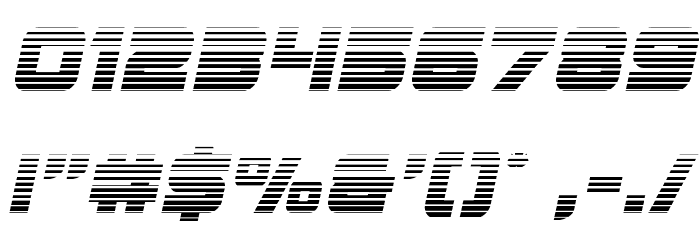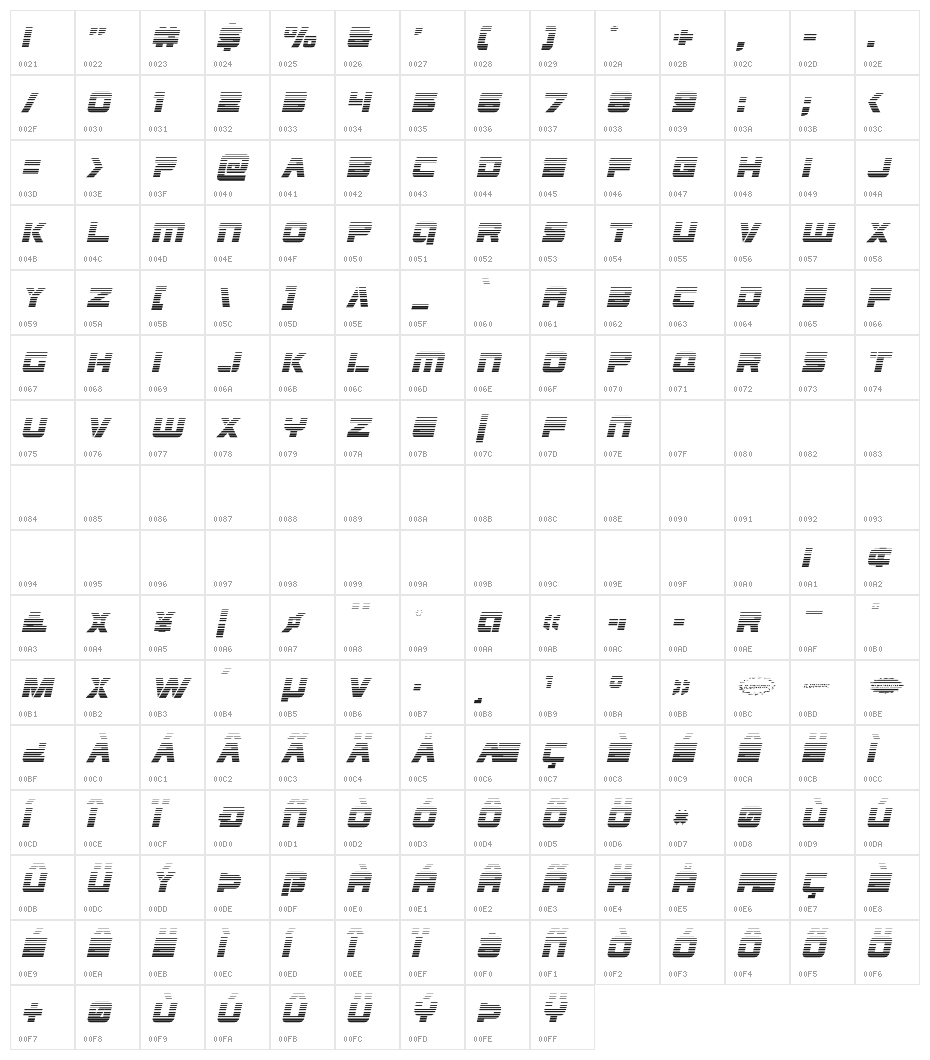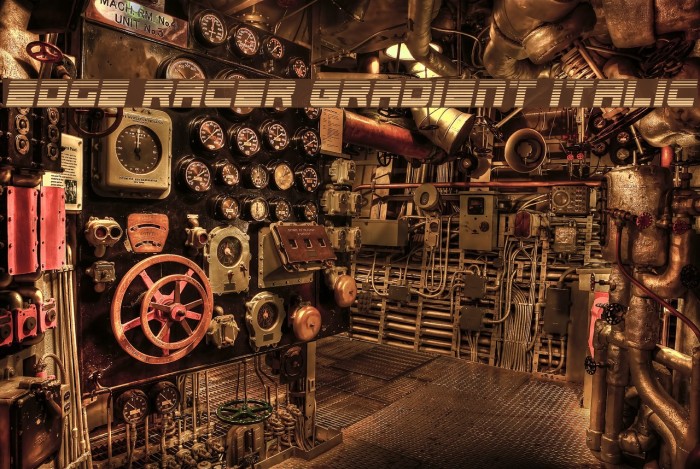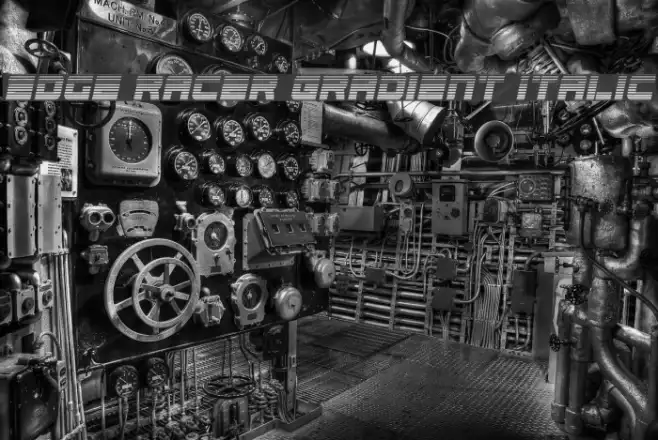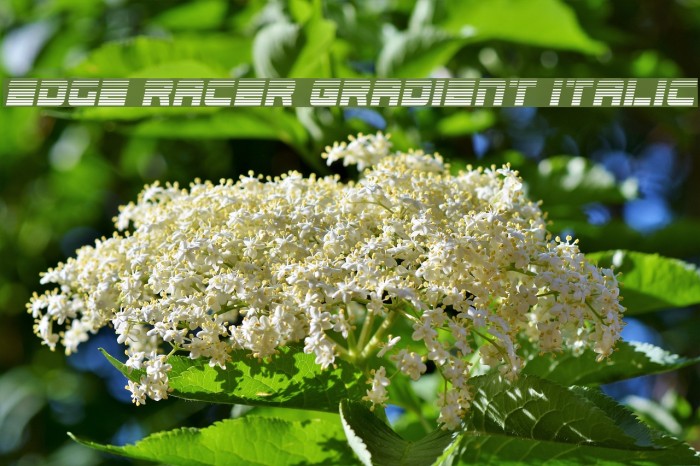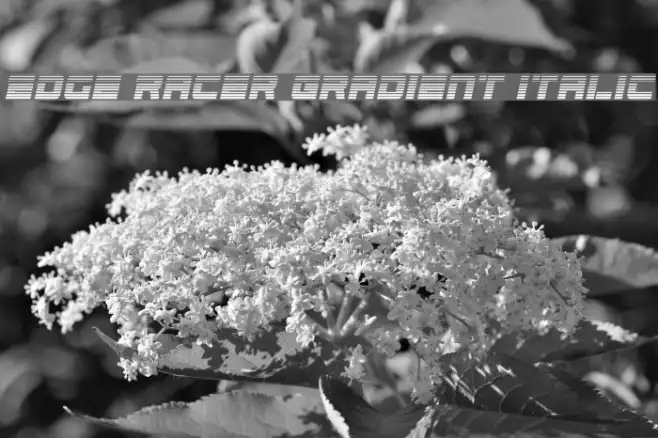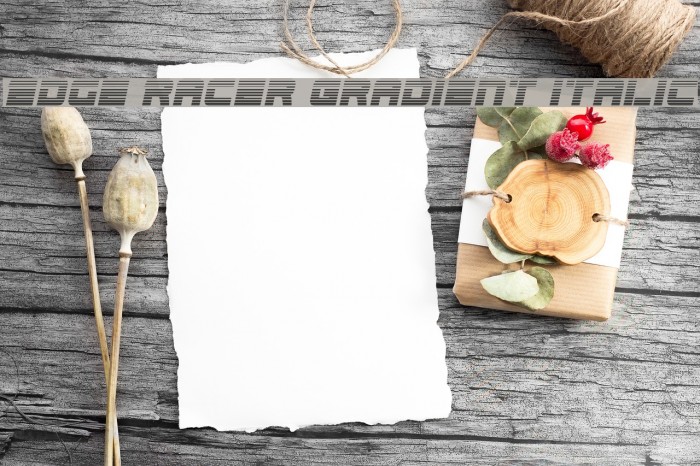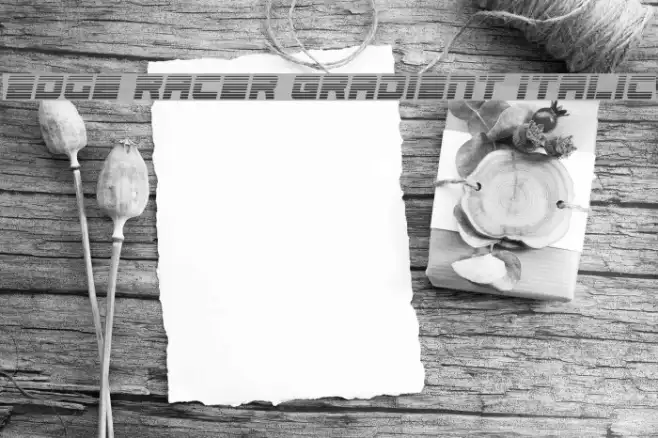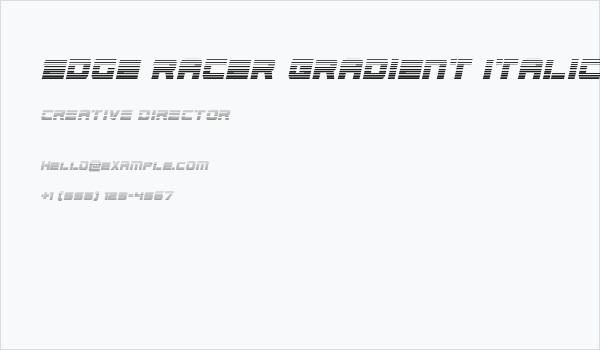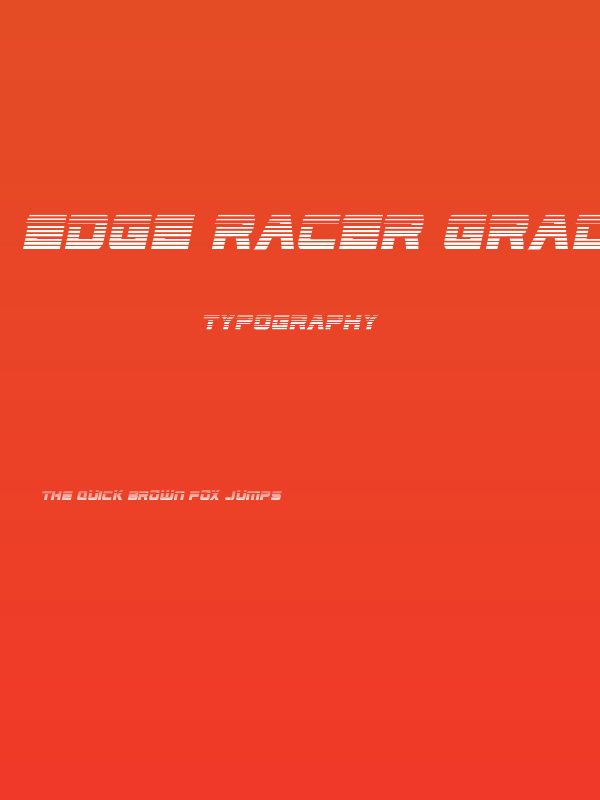
Edge Racer Gradient Italic Font
Edge Racer Gradient Italic Description
This font features a dynamic, racing-inspired design with a gradient effect that gives the impression of speed and movement. The characters are italicized, adding to the sense of forward motion. Each letter is composed of horizontal lines that create a striped pattern, enhancing the visual impact. The font is bold and eye-catching, making it ideal for projects that require a strong, energetic presence. The spacing between characters is tight, contributing to the compact and cohesive look. The overall style is modern and futuristic, suitable for themes related to technology, sports, or automotive industries.
| Proposed Projects | Ideal for sports branding, automotive advertisements, technology event posters, and dynamic logo designs. |